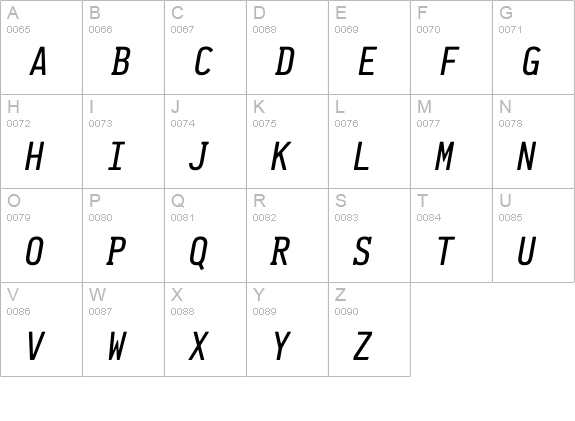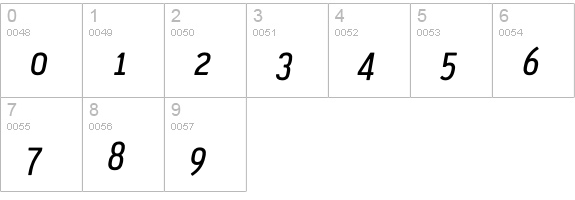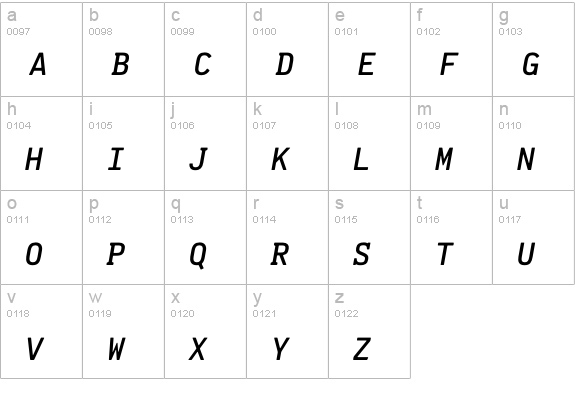
Pennsylvania Regular Italic SC is the standard, neutral, italic variant in the Pennsylvania typeface family \xE2\x80\x94 well suited to general body text, paragraphs, and standard typographic work.
Pennsylvania Regular Italic SC font is a stylish and versatile typeface that adds a touch of elegance to any project. Its sleek and slanted design is perfect for conveying a sense of sophistication and modernity. This font is ideal for a wide range of applications, including branding, advertising, packaging, and more. Its italicized characters bring a unique flair to your designs, making them stand out from the crowd. What sets Pennsylvania Regular Italic SC font apart is its accessibility. It is freely available to download at FontsMarket.com, making it a great choice for designers on a budget. Whether you're a professional designer or a hobbyist, this font is sure to meet your needs without breaking the bank. With its clean lines and legible characters, Pennsylvania Regular Italic SC font is easy to read in both small and large sizes. It is well-suited for use in body text, headlines, and captions. Its versatility allows it to adapt to various design styles and themes, making it a valuable addition to any font library. So why wait? Download Pennsylvania Regular Italic SC font for free at FontsMarket.com and elevate your designs with its stylish and sophisticated aesthetic.